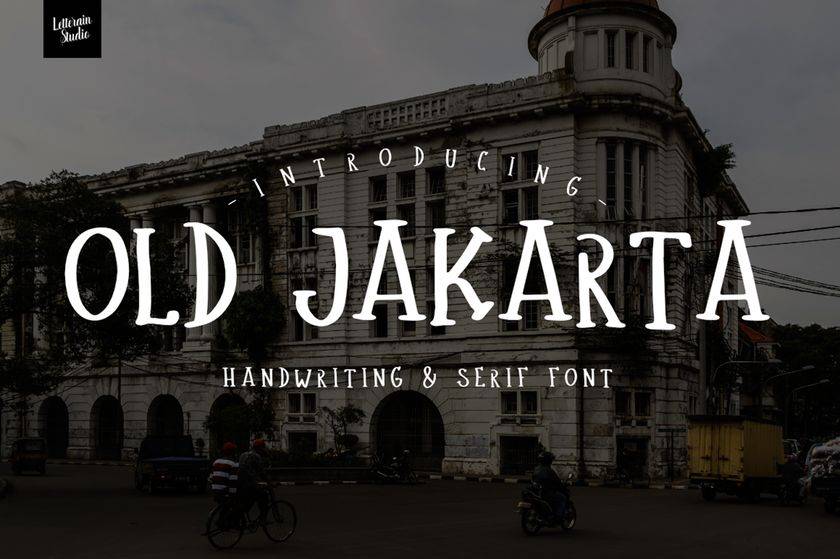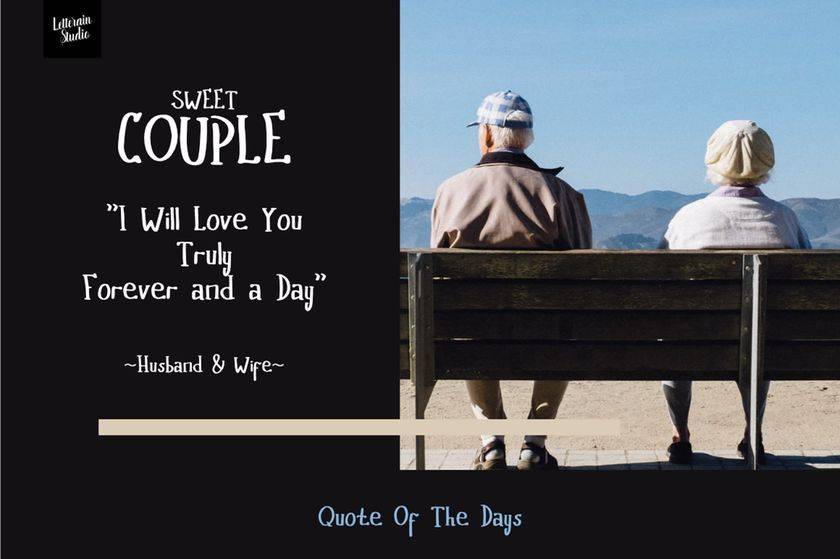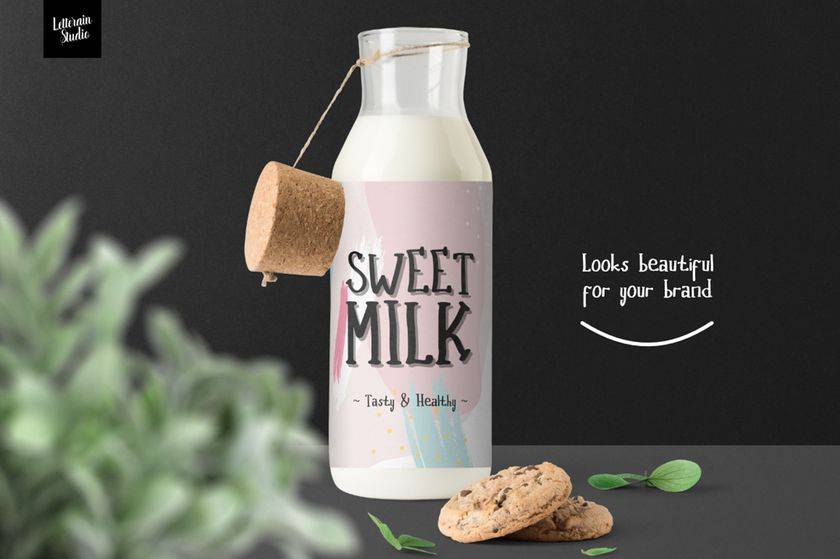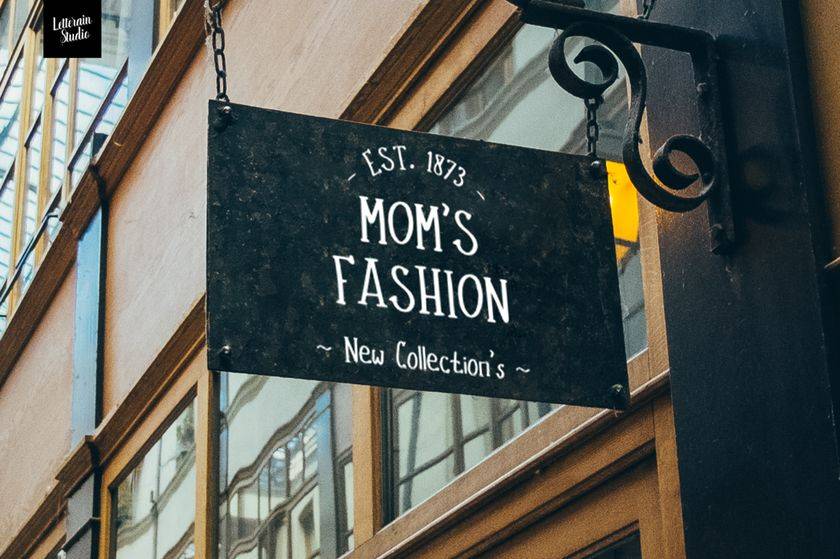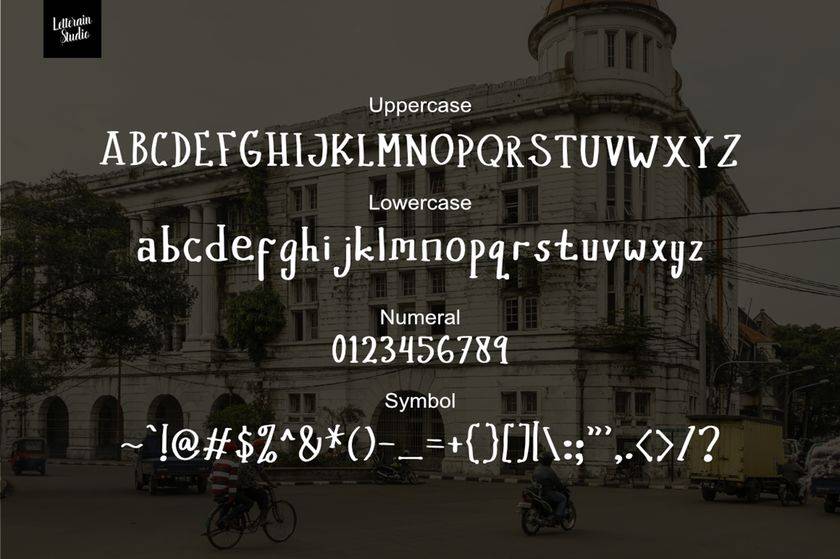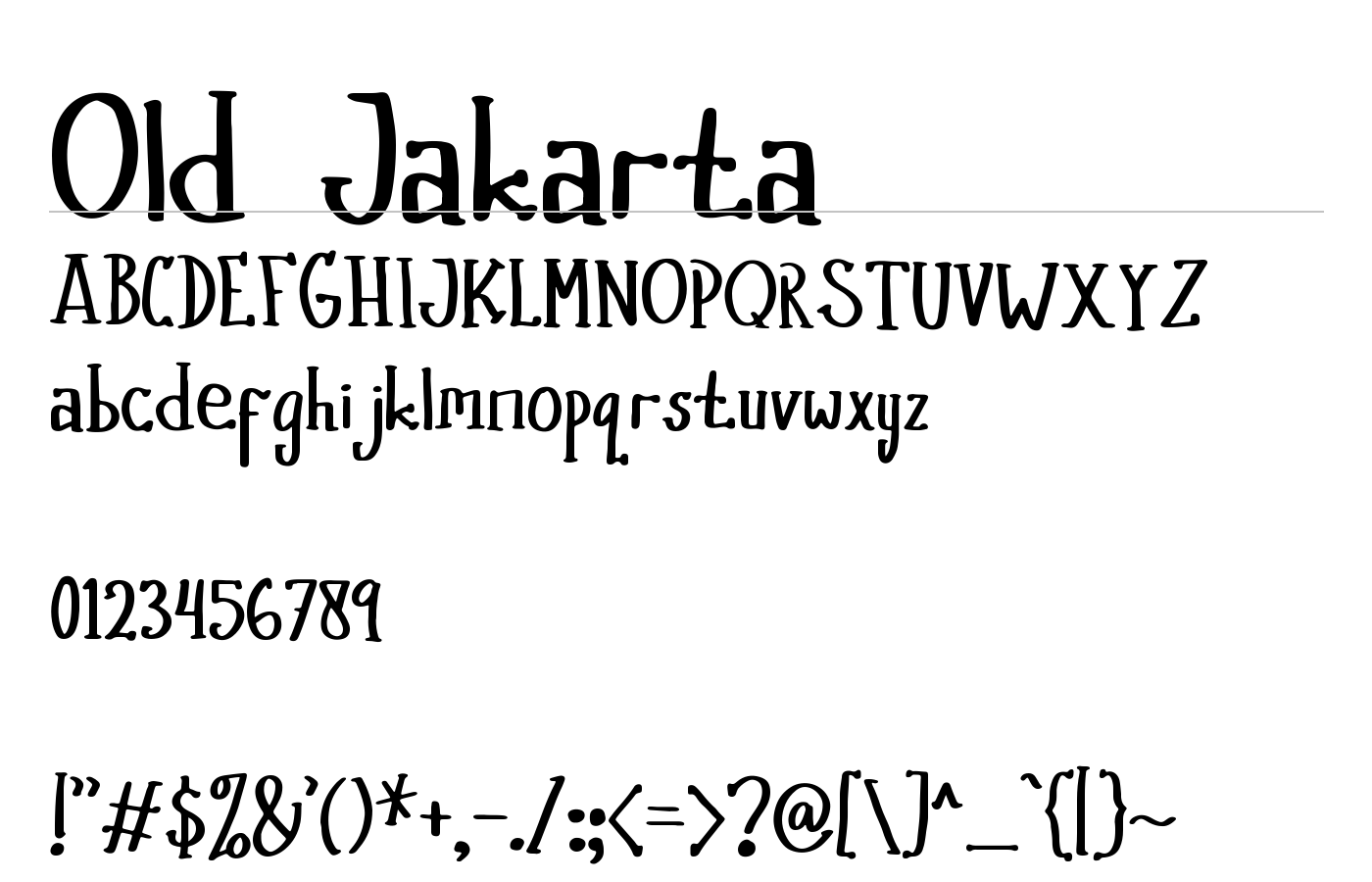
Old Jakarta is a whimsical serif font with a hand-drawn, playful character that combines narrow letterforms with uneven strokes and subtle irregularities. Its distinct personality, featuring quirky curves and tall, slightly condensed shapes, makes it ideal for creative projects, vintage-inspired designs, and expressive headlines where charm and individuality are key. This font works well in branding, posters, and editorial work aiming for a friendly yet unique aesthetic.
Old Jakarta Font
About Old Jakarta Font
| Font family | Old Jakarta Font |
| Designer | Letterain Studio |